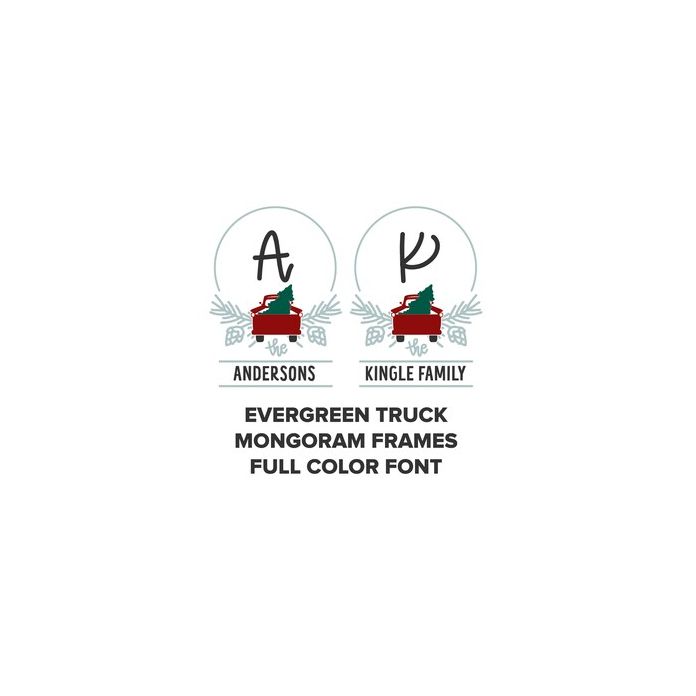
EVERGREEN TRUCK MONOGRAM FRAMES FULL COLOR FONT
This design is intended to be cut with an electronic cutting machine. This monogram font comes with 26 hand drawn monogram letters.